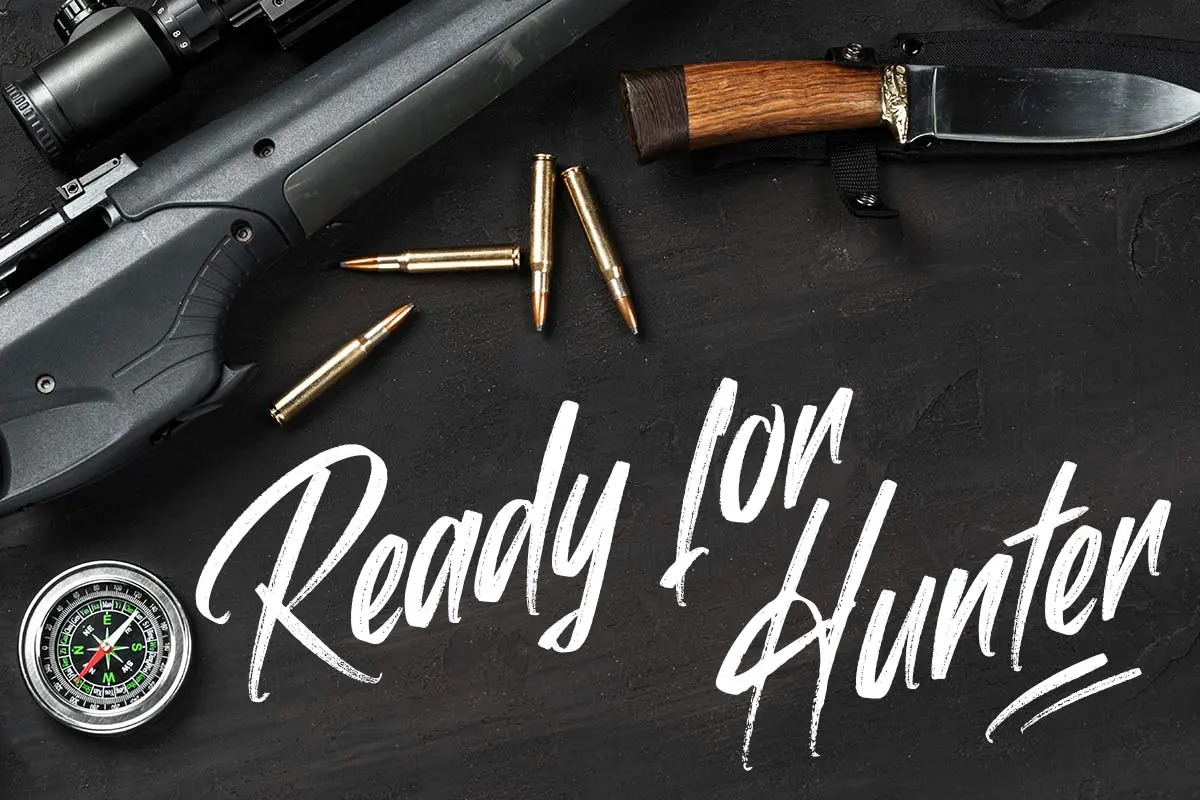
Beastquit Brush Font
This is a simple but unique brush typeface crafted & designed by fontkong. A collection of letters and numbers suitable your projects also great for Logotype, Branding Design, Logo Design, Digital Lettering Arts, T-Shirt/Apparel, Poster, Magazine, Signs, Advertising Design, and also perfect for your other projects branding.